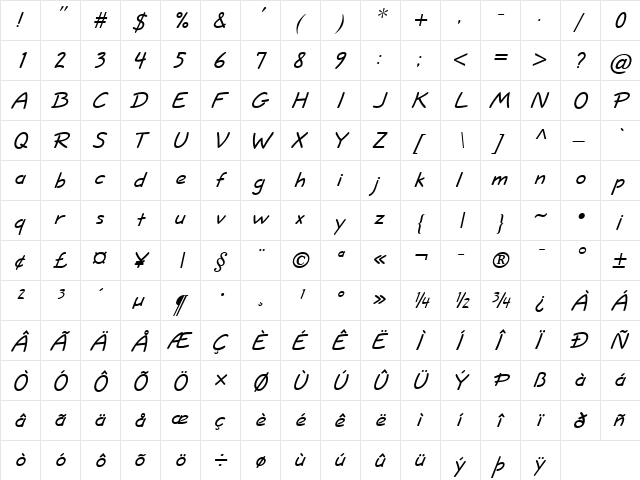
Neat Freak Italic
Design Context for Neat Freak Typeface
Neat Freak takes a measured approach to typography — its balanced proportions and neutral character make it a reliable workhorse for both digital and print work. Its italic angle brings a sense of urgency and motion to the letterforms.
Pro Tip: Try Neat Freak for annotation and caption copy alongside an upright companion — the contrast in angle creates a dynamic but ordered typographic system.